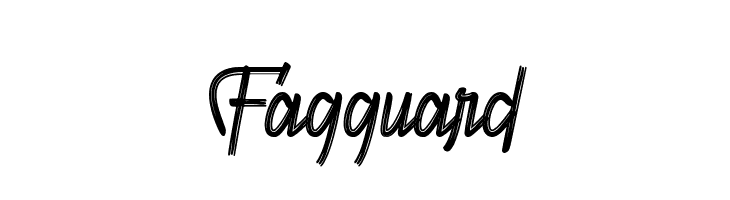
A bold, expressive script font with a hand-drawn, lively appearance.
A whimsical and artistic font with exaggerated curves and playful details.
A bold, condensed, and geometric font with a futuristic style.
A lively, handwritten font with fluid strokes and a casual elegance.
A bold, 3D distressed font with a rugged, industrial look.
An elegant and flowing script font with delicate, graceful strokes.
A bold, flowing script font with elegant, connected strokes.
Bold, angular, and geometric font with a modern, dynamic style.
A bold, geometric font with sharp angles and a modern, assertive style.
A bold, textured script font with a hand-painted appearance.
设计师偏爱 Thune FREE, Throrian Commonface, Zebulon Condensed Bold, Onbase and Mitesser 3D Regular,因为其造型干净、适用范围广—— 从品牌识别到落地页、海报都能胜任。